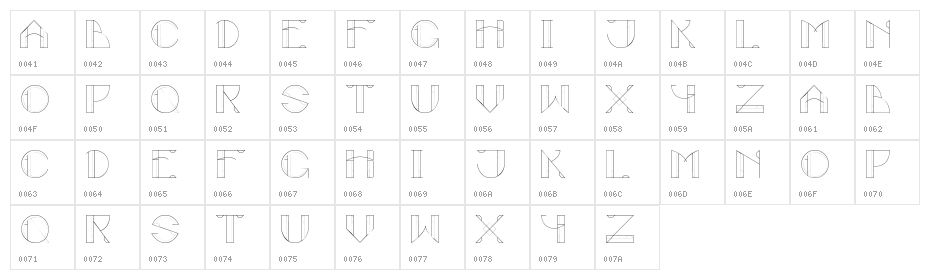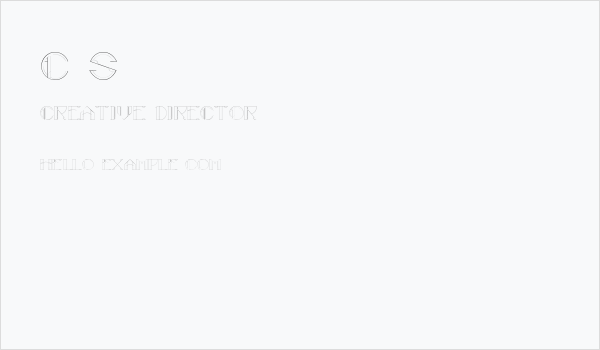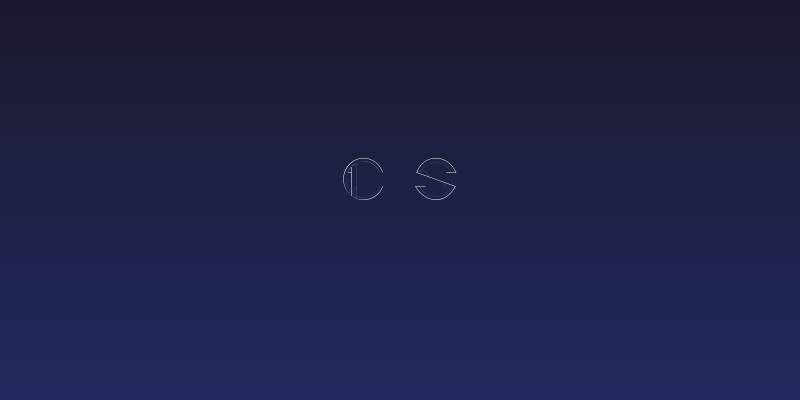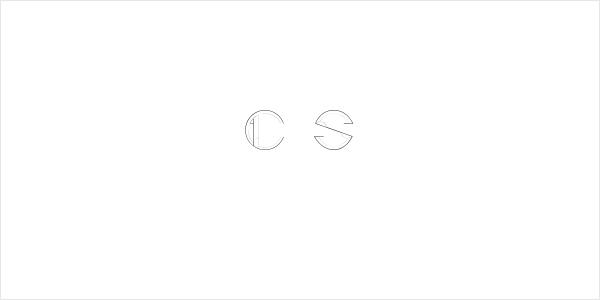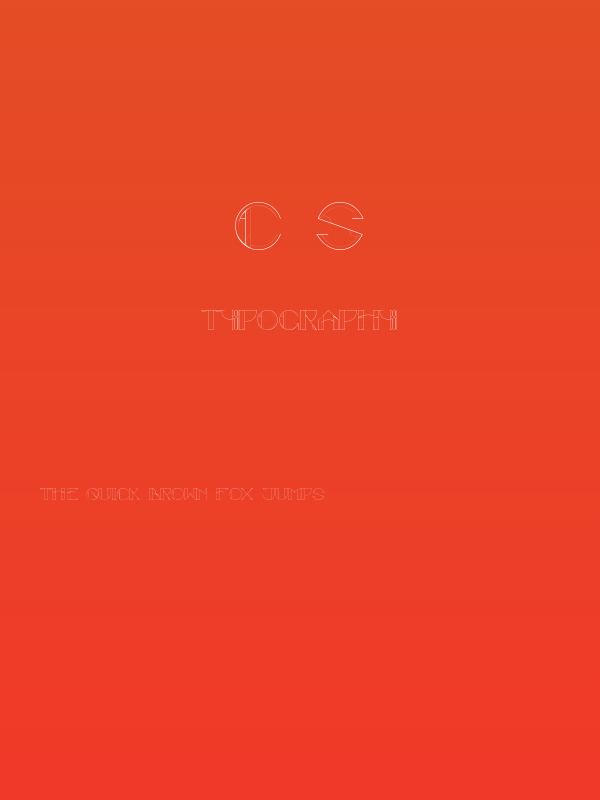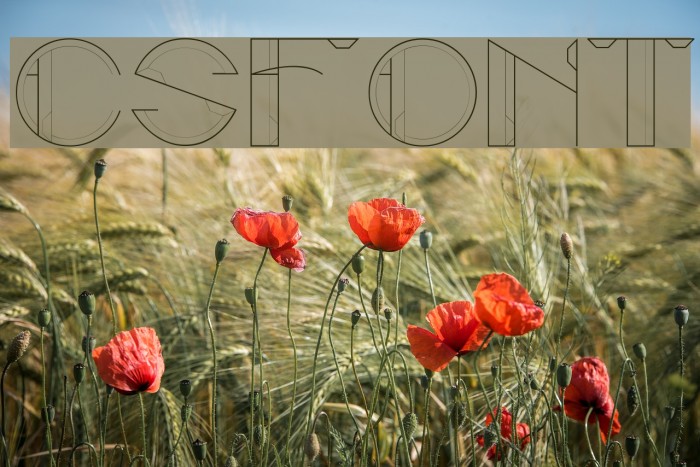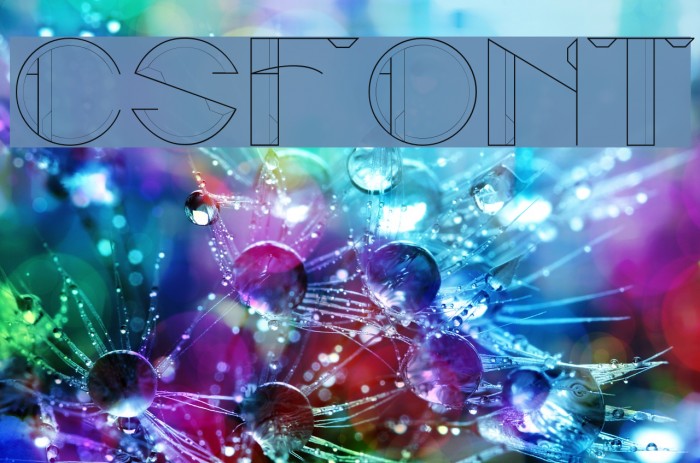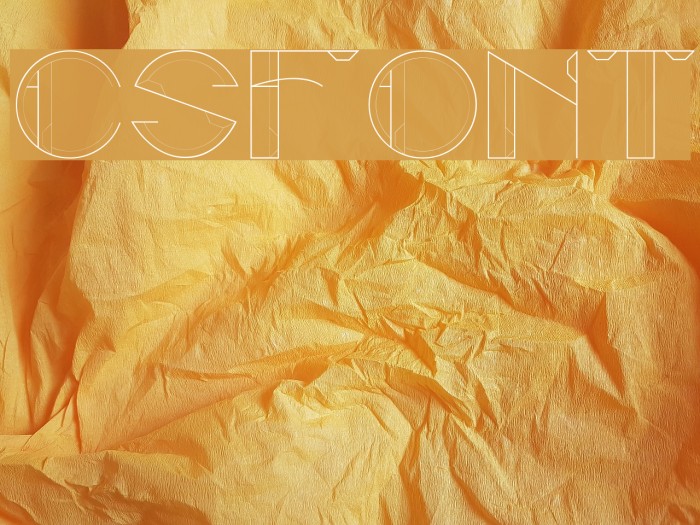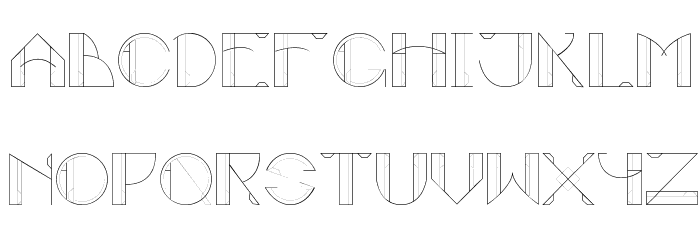
C/S Font
This font features a geometric and futuristic design, characterized by its use of clean lines and angular shapes. Each letterform is constructed with a combination of straight edges and circular elements, creating a unique and modern aesthetic. The uppercase letters are particularly striking, with some incorporating cut-out sections that add to the font's distinctive look. The overall design is minimalistic yet bold, making it suitable for projects that require a contemporary and eye-catching typeface.
| Proposed Projects | Ideal for modern branding, tech-related designs, futuristic posters, and digital media. |